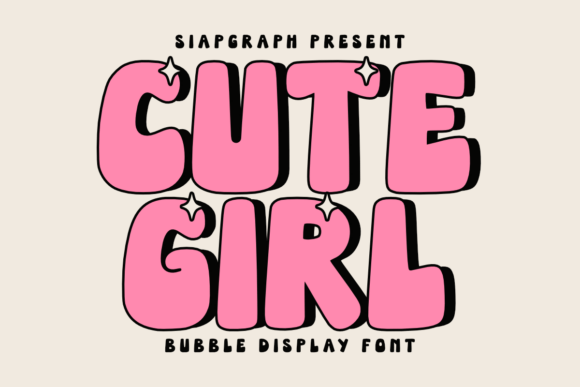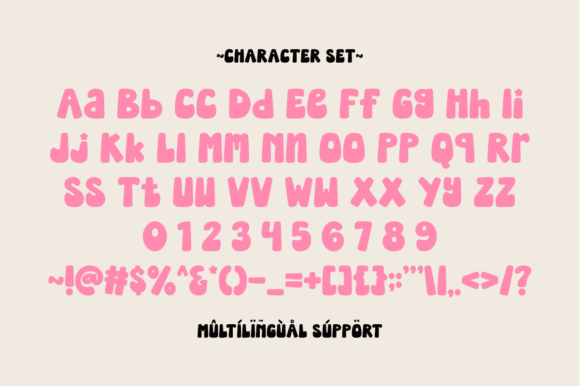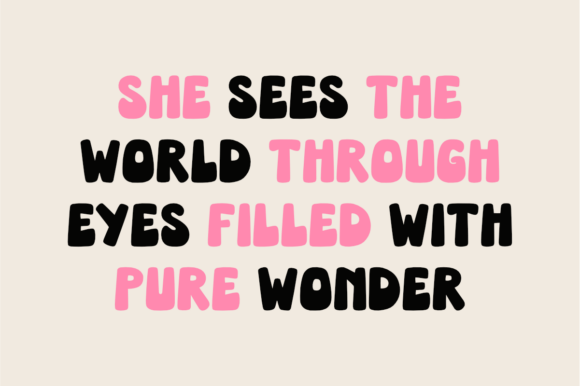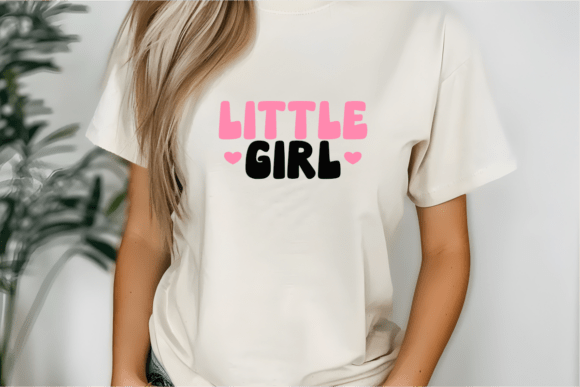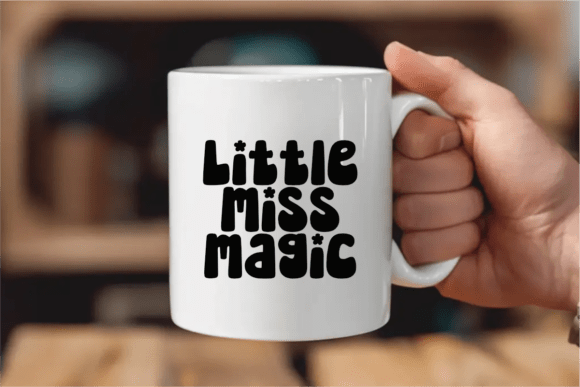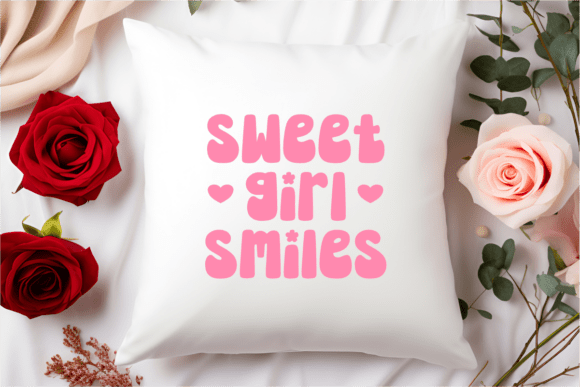
Cute Girl Font
Cute Girl is a charming and playful bubble display font that radiates sweetness and a touch of sparkle. Its rounded, soft letterforms outlined in a delicate black stroke, combined with adorable starburst accents on some characters, create a uniquely endearing and eye-catching aesthetic. This font is perfect for adding a dose of cuteness and whimsy to a wide spectrum of creative projects. Imagine Cute Girl enhancing delightful stickers, charming planner layouts, sweet t-shirt designs, lovely product labels, adorable invitations, personalized tumblers, and a variety of other heartwarming crafts.
Its friendly and approachable style makes it exceptionally well-suited for products aimed at end-users who enjoy crafting with tools like Cricut and for sublimation projects, as well as for creating appealing stickers and planner elements with a touch of magic. Cute Girl’s distinctively sweet and sparkly character will make your designs stand out and bring a feeling of joy and innocence to anyone who sees them.